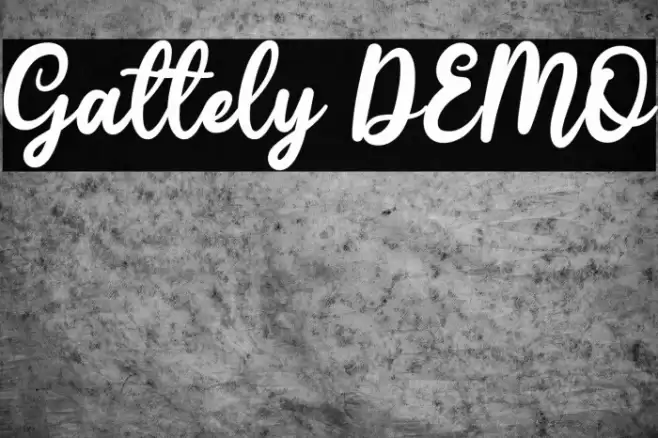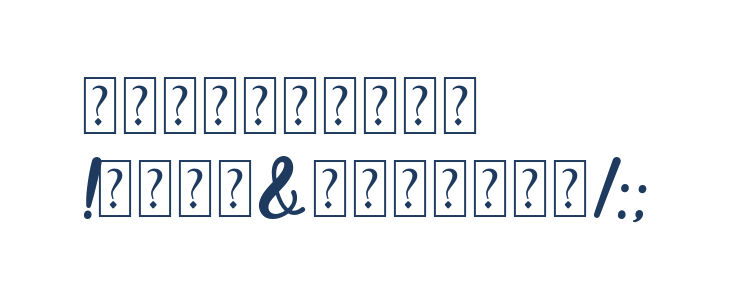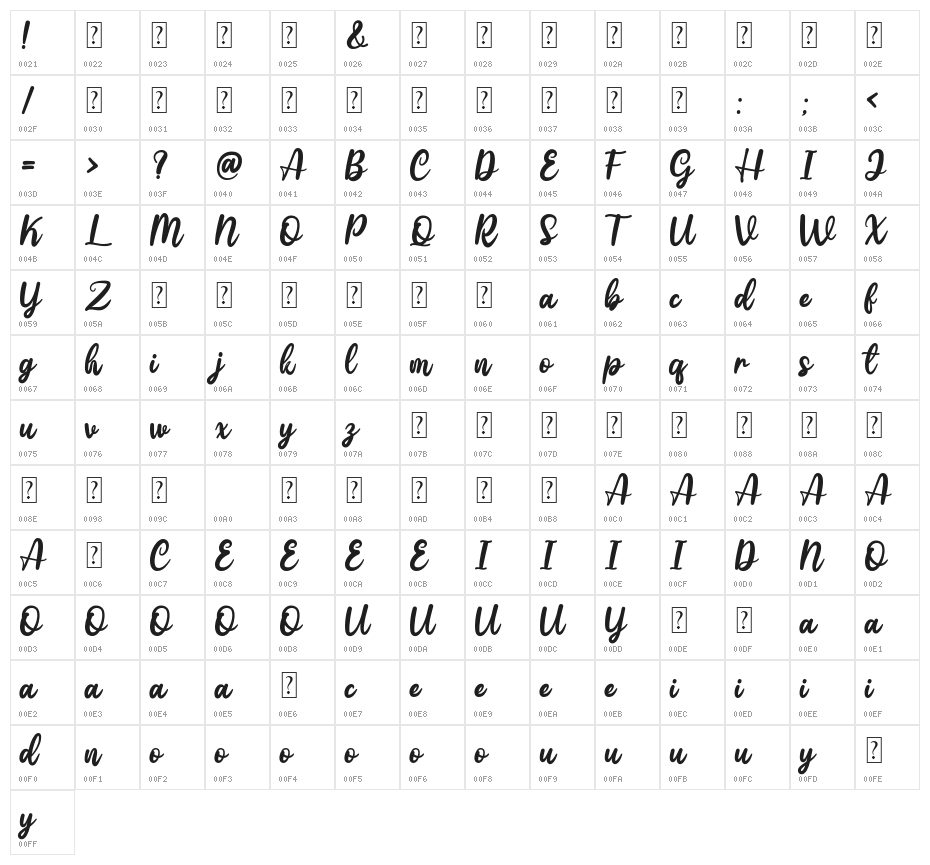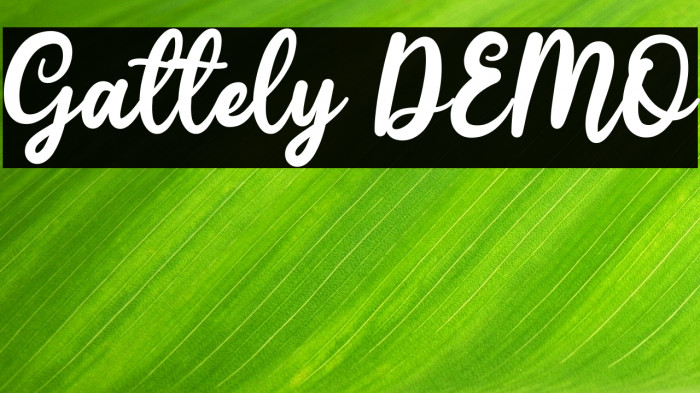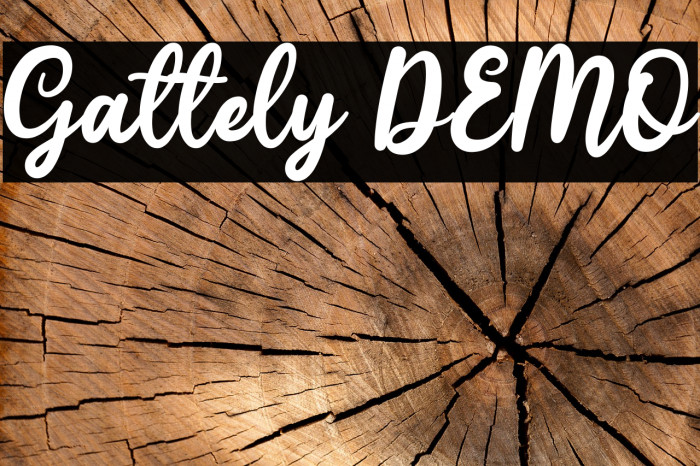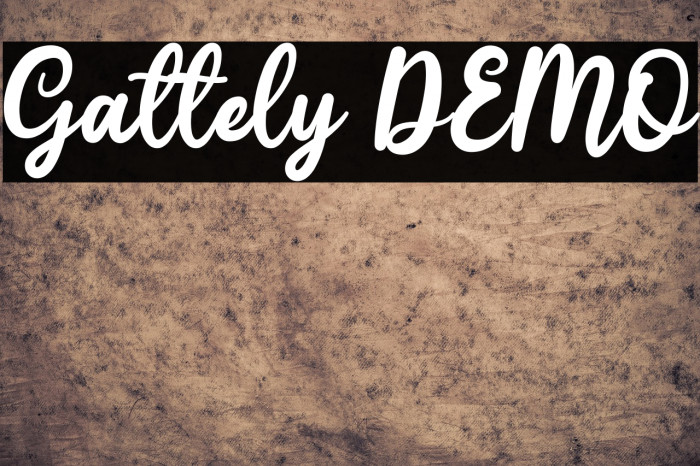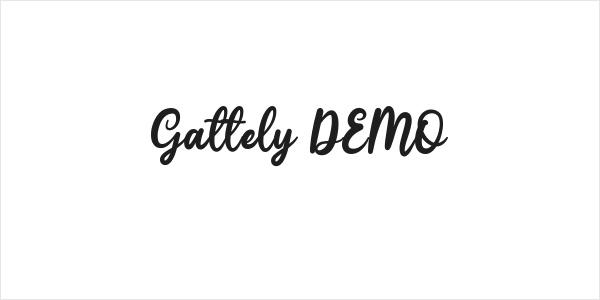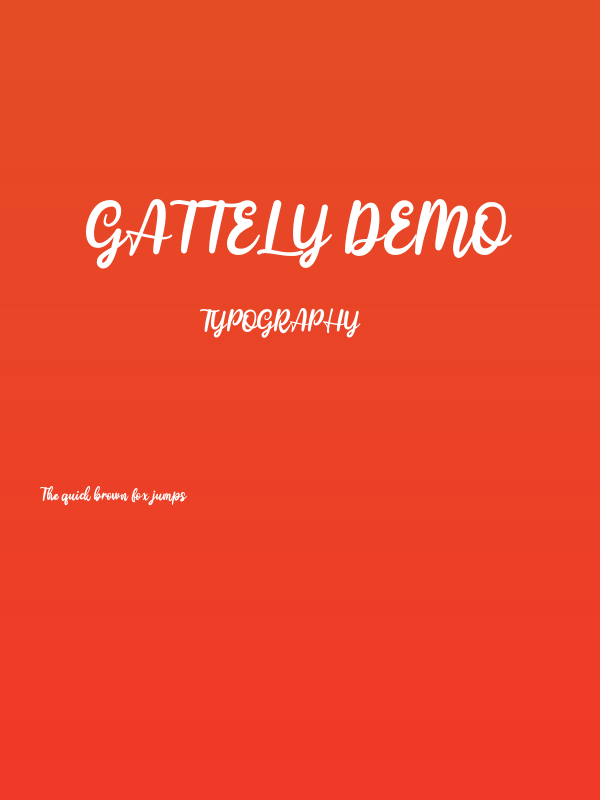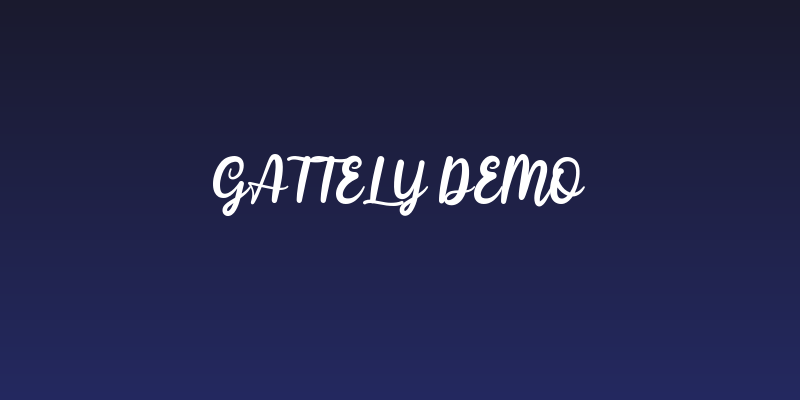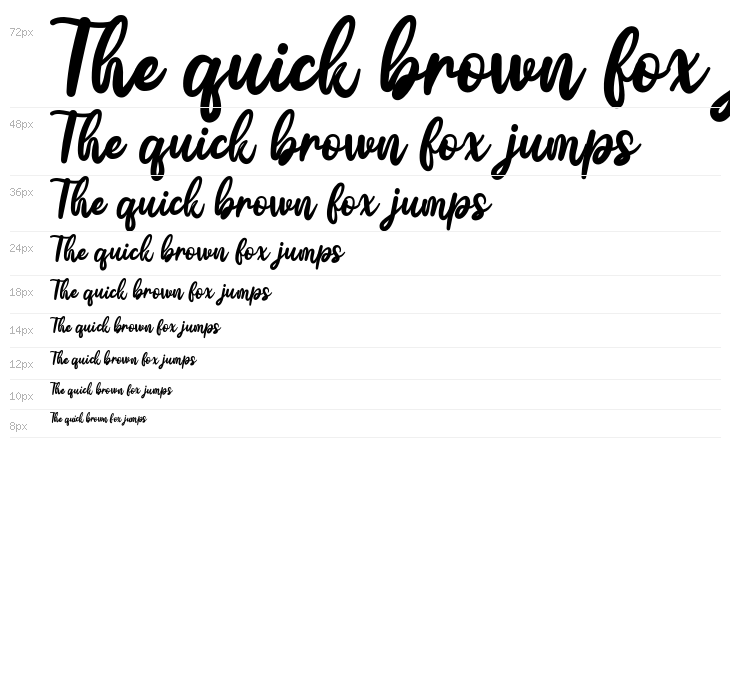
Gattely DEMO Font
Gattely DEMO Description
This font features a bold and expressive script style, characterized by its fluid and connected letterforms. The uppercase letters are elegantly designed with sweeping curves and a dynamic flow, while the lowercase letters maintain a cohesive and harmonious appearance. The font exudes a sense of creativity and flair, making it ideal for projects that require a personal touch. The special characters are crafted with the same attention to detail, ensuring consistency throughout the typeface. Its bold weight and smooth transitions between thick and thin strokes give it a striking presence.
A bold, expressive script font with fluid, connected letterforms from Uncategorized fonts.
- Proposed Projects: Ideal for branding, invitations, greeting cards, and creative projects that require a personal and artistic touch.
- Use Case: Logos, Headlines, Invitations